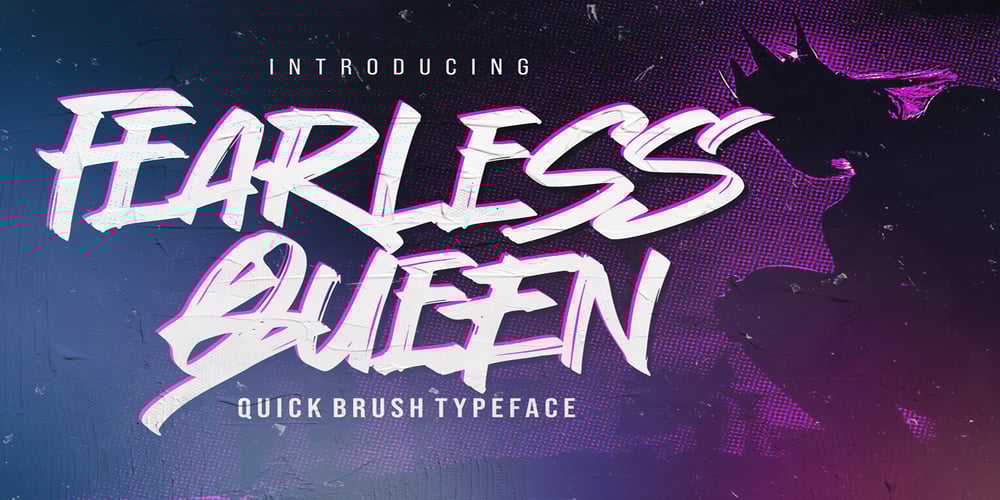
Fearless Queen Font Family was designed by Abdul Malik Wisnu, Anang Fibriyanto and published by Gassstype. Fearless Queen contains 1 styles and family package options. Introduce, New Font in Fearless QueenInspired from old skool graffiti Sketch and street art, we created this Typeface.Drawn in Procreate app, then vectorized and crafted carefully with passion, love and Prides :).Fearless Queen Typeface Suitable for many design project, branding, packaging, logo, wall art, headline, template, banner, poster, and many more projects. These include all caps, punctuation, and numerals.